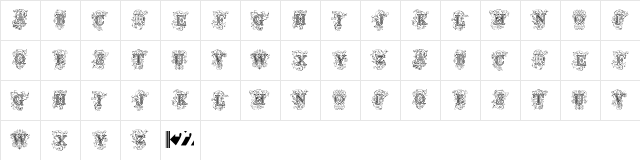
Tuscani Initials Regular
| Foundry | Toto |
| Designer | Toto |
Design Context for Tuscani Initials Typeface
Tuscani Initials is a composed and adaptable typeface that performs quietly and consistently across a wide range of design contexts.
Pro Tip: Pair Tuscani Initials with a font of contrasting weight or personality to build a more expressive typographic hierarchy.